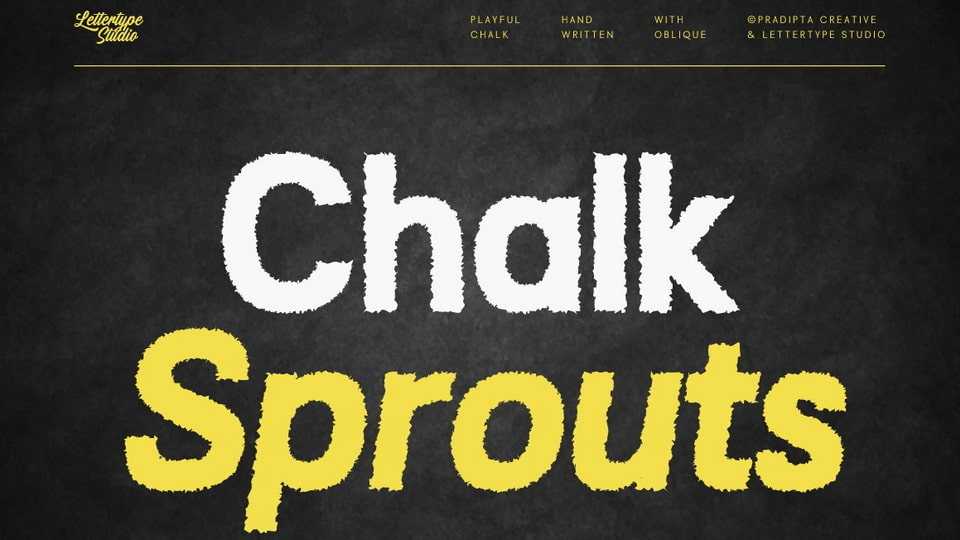
Download Chalk Sprouts font, a fun and energetic handwritten chalk typeface designed to bring life to your projects with rough textured strokes that mimic real chalk on a blackboard.
Designer: Lettertype Studio